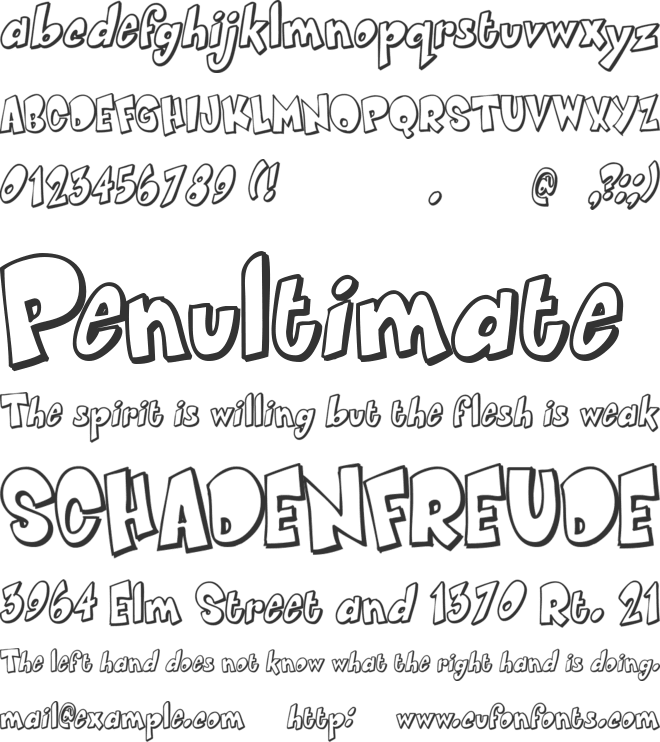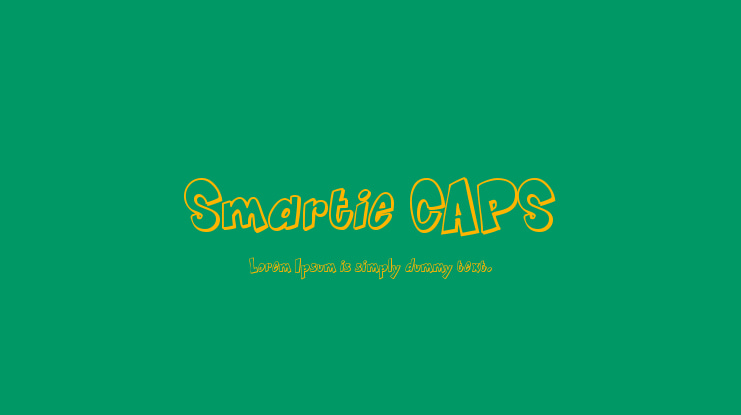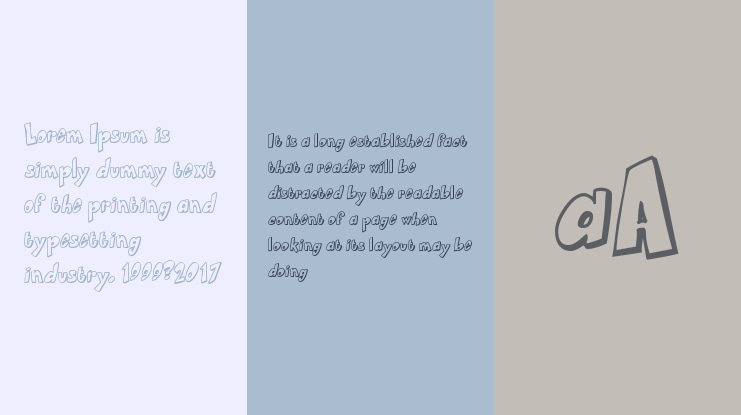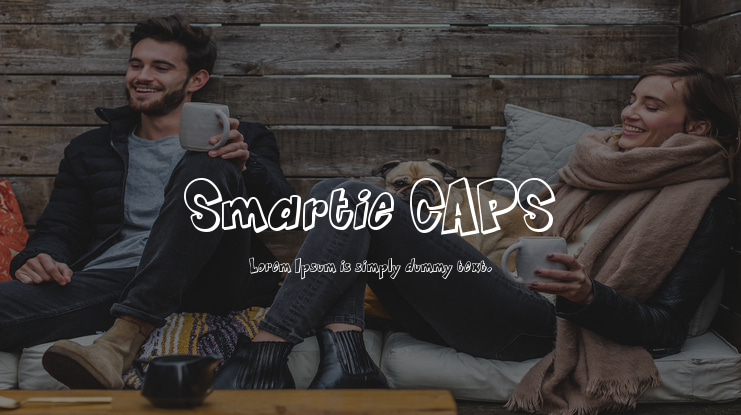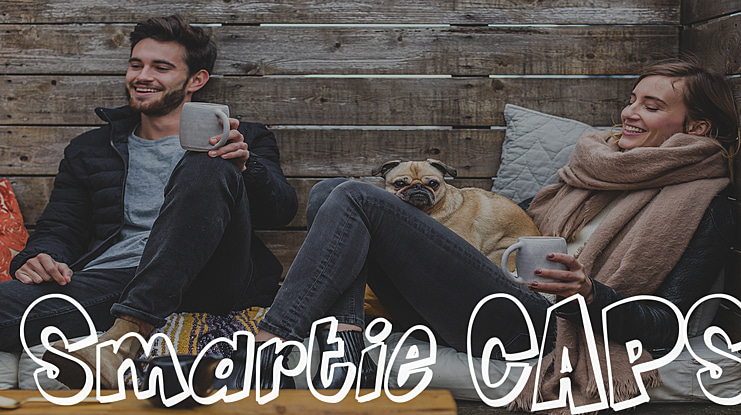
Smartie CAPS Font
Smartie was such a popular font that I thought you all deserved some capital letters to go with the little ones. Now you have sentence-making material! This is the first new and improved font I have re-worked. The stroke is thicker, too. Its got pretty much everything you need to take care of bidniz. Its Smartie Time folks!!